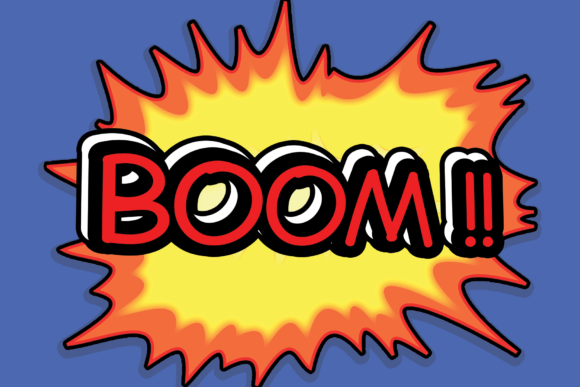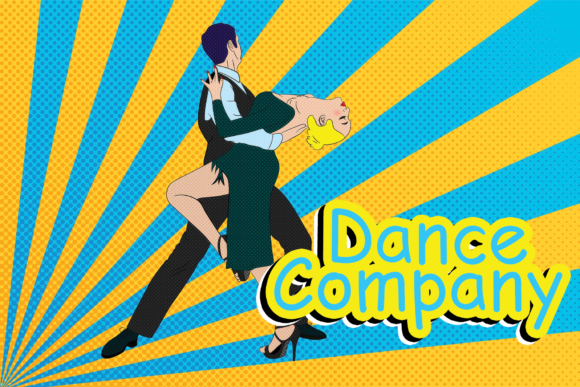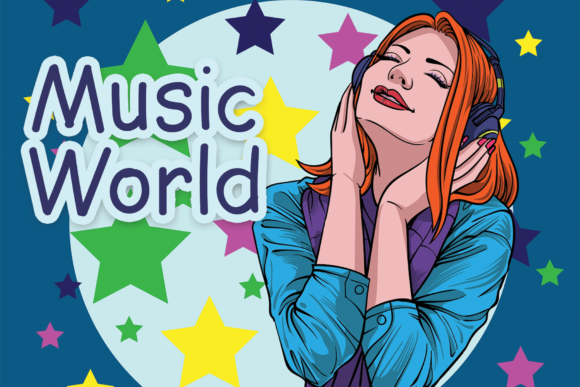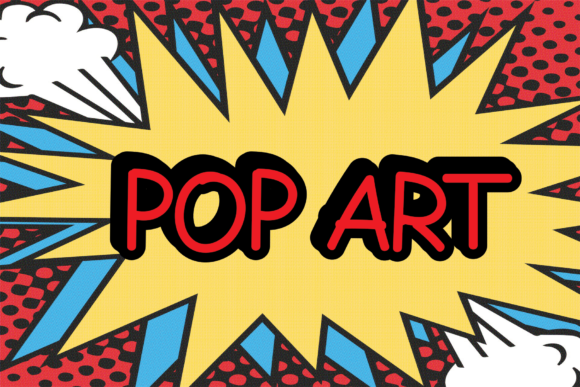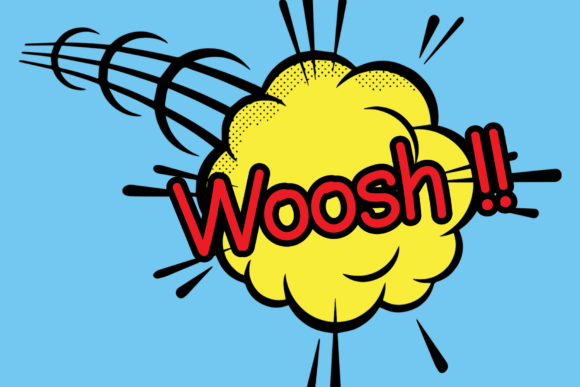
Introducing Comic Font: The Ultimate Choice for Fun and Creative Designs
Are you looking for a font that can add a touch of fun and friendliness to your designs? Look no further than Comic Font! This cool-looking and friendly display font is perfect for a wide range of creative projects, from cartoon-related designs and children’s games to quotes, titles, brand names, book covers, posters, and more.
What Makes Comic Font So Special?
Comic Font is a unique and versatile font that can add a dash of personality to any design. Its playful and approachable style makes it perfect for projects that require a touch of whimsy and fun. Whether you’re a designer, crafty DIY enthusiast, or simply someone who loves to create, Comic Font is a great choice for anyone looking to add some visual interest to their work.
Perfect for Cartoon-Related Designs
Comic Font is a natural fit for cartoon-related designs, such as animated movies, TV shows, comics, and video games. Its bold and playful style is reminiscent of classic comic books and cartoons, making it perfect for creating fun and engaging designs that appeal to kids and adults alike.
Some popular use cases for Comic Font in cartoon-related designs include:
- Creating animated titles and logos for cartoons and animated movies
- Designing characters and graphics for comics and graphic novels
- Developing branding and marketing materials for cartoon-related businesses
Great for Children’s Games and Education
Comic Font is also an excellent choice for children’s games and educational materials. Its fun and playful style can help make learning more engaging and enjoyable for kids, making it perfect for:
- Creating titles and headings for children’s books and educational materials
- Designing characters and graphics for kids’ games and apps
- Developing educational posters and charts that appeal to kids
Ideal for Quotes, Titles, and Brand Names
Comic Font is not just limited to cartoon-related designs and children’s games. Its versatility makes it an excellent choice for a wide range of other creative projects, including:
- Creating eye-catching titles and headings for posters, flyers, and brochures
- Designing logos and brand names that need to stand out
- Developing social media graphics and quotes that need to grab attention
Book Covers, Posters, and More
Comic Font is also a great choice for book covers, posters, and other print materials. Its bold and playful style can help make your designs stand out and grab attention. Some popular use cases for Comic Font in print materials include:
- Creating eye-catching book covers for fiction and non-fiction books
- Designing posters and flyers for events and promotions
- Developing marketing materials, such as brochures and catalogs
Why Choose Comic Font?
- Unique and versatile style: Comic Font has a one-of-a-kind style that can add a touch of personality to any design
- Perfect for a wide range of projects: From cartoon-related designs to book covers and posters, Comic Font is a great choice for many different types of creative projects
- Easy to read and understand: Despite its playful style, Comic Font is easy to read and understand, making it perfect for titles, headings, and other design elements
In conclusion, Comic Font is a cool-looking and friendly display font that’s perfect for adding a touch of fun and personality to your designs. Its versatility and unique style make it a great choice for a wide range of creative projects, from cartoon-related designs and children’s games to quotes, titles, brand names, book covers, posters, and more. So why not give Comic Font a try and see how it can elevate your next creative project?